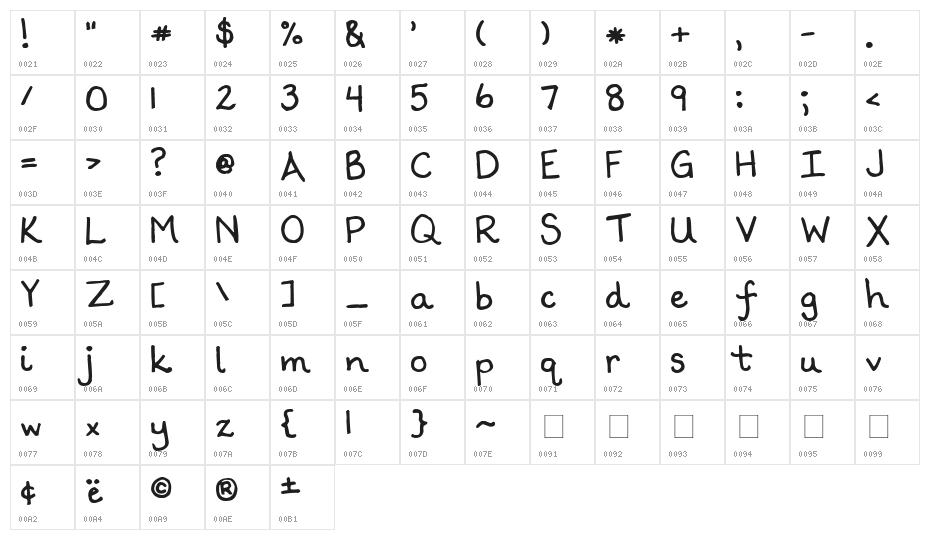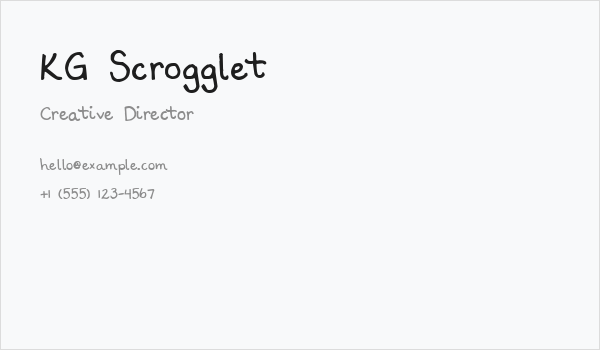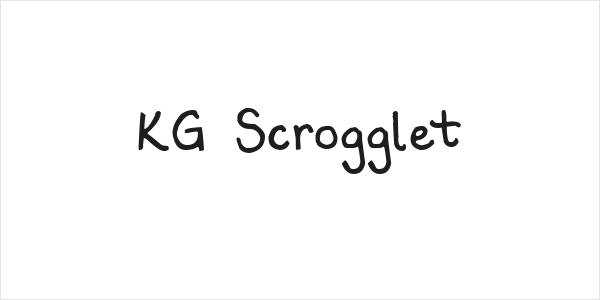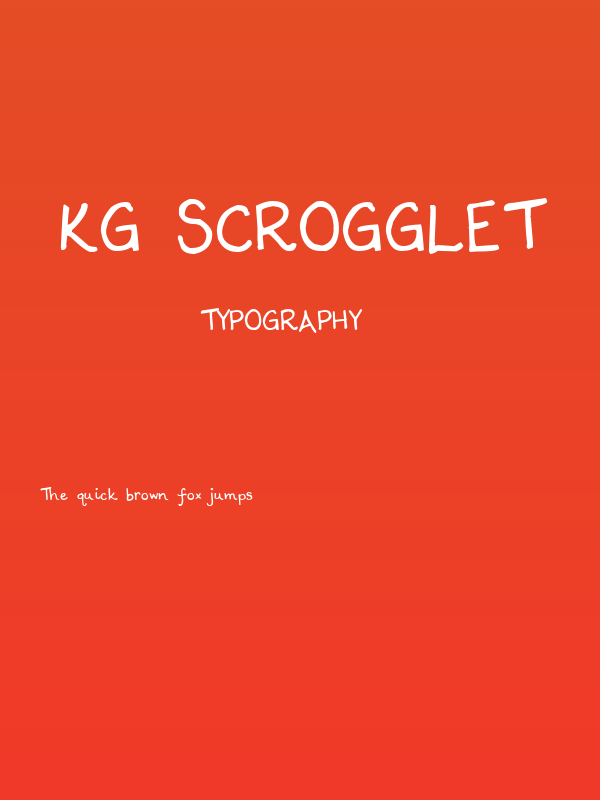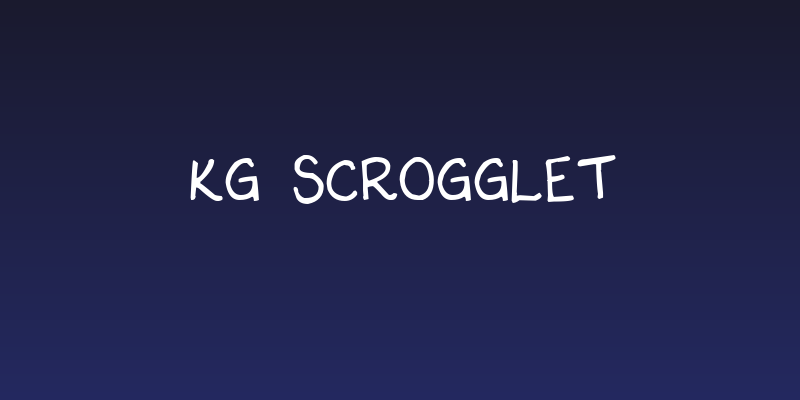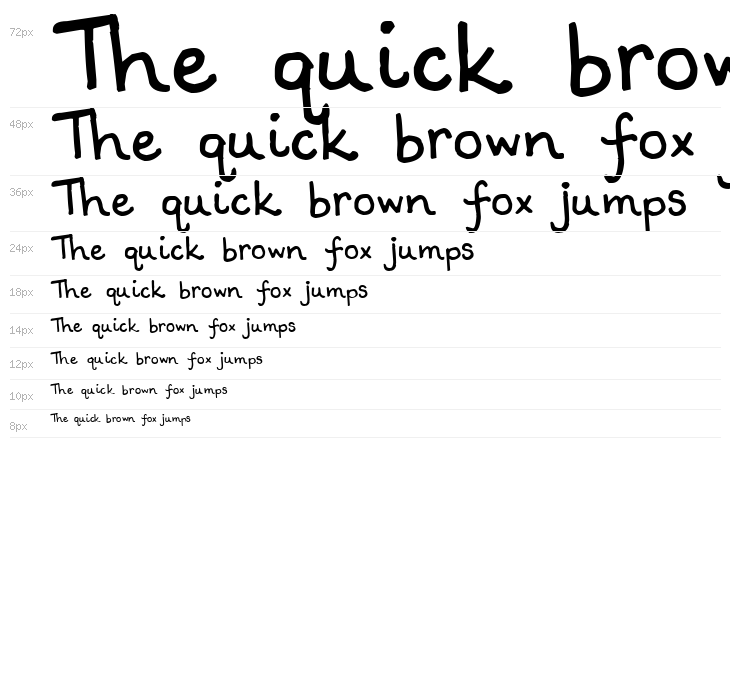
KG Scrogglet Font
KG Scrogglet Description
This playful and whimsical font features a hand-drawn style with irregular, slightly wobbly lines that give it a casual and friendly appearance. The characters are rounded and have a consistent stroke width, contributing to its approachable and informal feel. The uppercase and lowercase letters are distinct, with the lowercase having a slightly more exaggerated, playful form. Numbers and special characters maintain the same hand-crafted aesthetic, making the font versatile for creative projects. Its unique style makes it suitable for designs that aim to convey a sense of fun and creativity.
| Proposed Projects | Ideal for children's books, playful branding, greeting cards, and creative posters. |